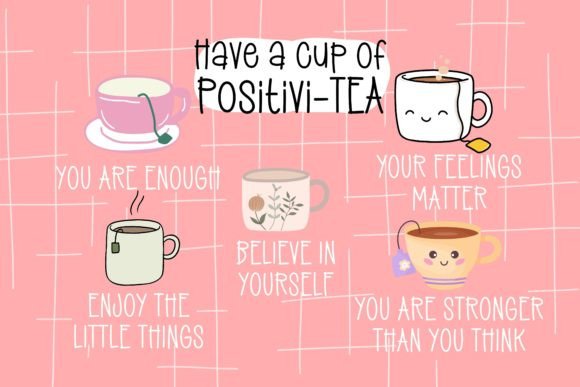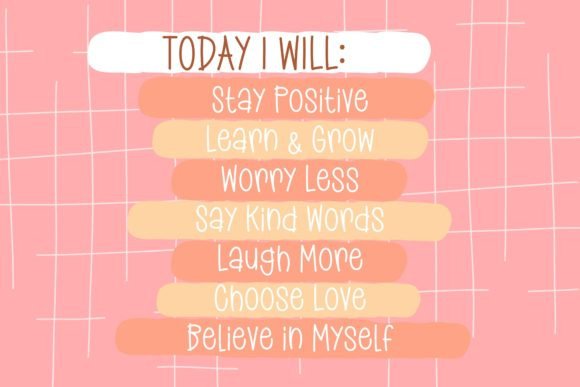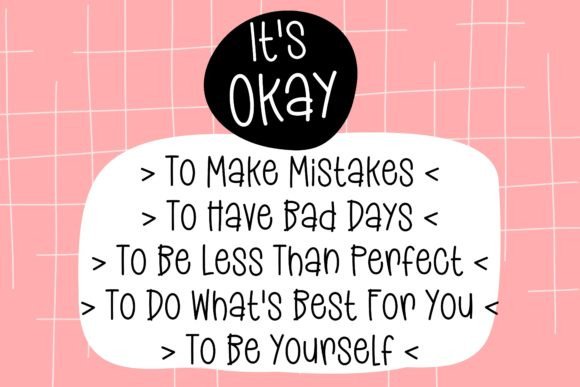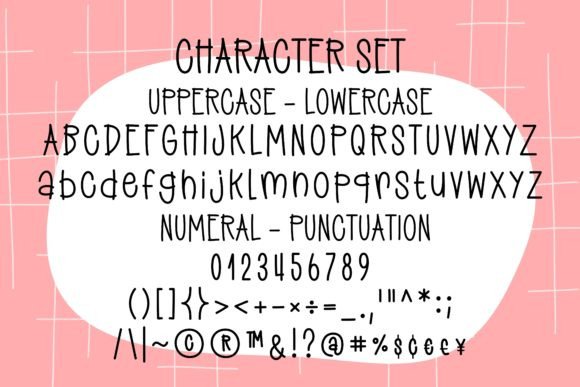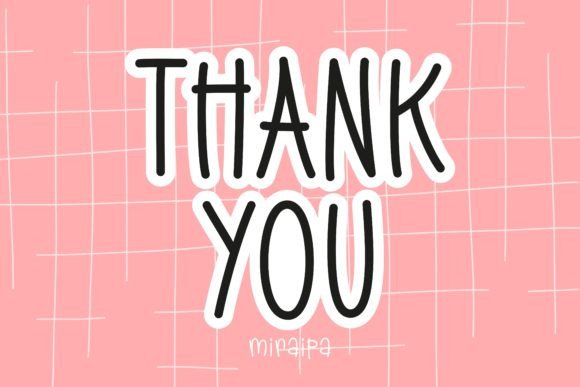
Introducing Friendship Font: The Perfect Addition to Your Design Collection
Are you tired of using the same old fonts in your design projects? Look no further! We’re excited to introduce Friendship Font, a delightful sans serif font that’s sure to bring a touch of whimsy and charm to your creations. In this article, we’ll dive into the details of this beautiful font and explore the many ways you can use it to elevate your designs.
A Cute and Playful Font Style
Friendship Font is designed with a cute and playful sans serif font style that’s perfect for adding a friendly touch to your projects. Its charming and whimsical design makes it ideal for a wide range of applications, from fun and casual designs to more creative and artistic endeavors. The font’s quirky personality shines through in its unique letterforms, making it a standout addition to any design collection.
Perfect for Fun Projects and DIY Enthusiasts
Whether you’re a designer, crafter, or DIY enthusiast, Friendship Font is the perfect choice for your next project. Its playful and charming design makes it well-suited for a variety of applications, including:
- Easter and spring-themed designs
- Back to school and educational materials
- Wedding and party decorations
- Fall and Halloween-themed designs
- Christmas and holiday decorations
- Blogs and social media posts
- Clothing and textile designs
- Child-related designs and products
Why Choose Friendship Font?
So why choose Friendship Font for your next project? Here are just a few reasons:
- Unique and eye-catching design: Friendship Font’s playful and whimsical design is sure to grab attention and add a touch of personality to your projects.
- Versatile and adaptable: This font is perfect for a wide range of applications, from fun and casual designs to more creative and artistic endeavors.
- Easy to read and use: Despite its playful design, Friendship Font is easy to read and use, making it perfect for both digital and print applications.
- Adds a friendly touch: This font’s charming and whimsical design adds a friendly touch to any project, making it perfect for designs that need a personal and approachable feel.
How to Use Friendship Font in Your Projects
- Pair it with other fonts: Friendship Font pairs well with a variety of other fonts, so don’t be afraid to experiment and find the perfect combination for your project.
- Use it in headings and titles: This font is perfect for headings and titles, where its playful and whimsical design can really shine.
| Font Name | Friendship Font |
| Author | miraipa |